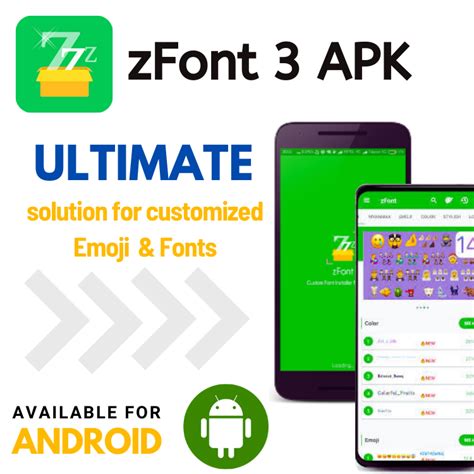
Download ZFont For IOS 15.4: Your Font Customization Guide
Unlock Your iPhone’s Potential: The Ultimate Guide to Downloading ZFont for iOS 15.4
What’s up, tech enthusiasts and customization kings and queens! Today, we’re diving deep into something super cool that’s going to revamp your iPhone experience : downloading ZFont for iOS 15.4. You know how sometimes you just stare at your iPhone and think, “Man, I wish I could just change these boring fonts?” Well, guess what? You absolutely can, and ZFont is your golden ticket! We’re going to walk through exactly how to get this awesome app onto your device, so you can start rocking those personalized fonts and making your iPhone truly your own . Get ready, because we’re about to unlock a whole new level of visual flair for your digital life. So grab your favorite beverage, get comfy, and let’s get this customization party started!
Why ZFont is Your New Best Friend for iOS 15.4 Font Customization
Alright guys, let’s talk about why ZFont is such a game-changer, especially when you’re running the latest and greatest, like iOS 15.4 . You see, Apple’s iOS is amazing, don’t get me wrong, but when it comes to font options? It’s a bit like being stuck with vanilla ice cream when there’s a whole world of flavors out there. ZFont swoops in like a superhero, offering you a massive library of fonts that you can apply across your entire device. Imagine seeing your texts in a stylish script, your notes in a bold, futuristic font, or even your social media captions popping with a unique typeface. ZFont makes this a reality, and it’s surprisingly easy to use. It’s not just about slapping on a new font; it’s about expressing your personality through the very text you interact with daily. Think about it – your phone is an extension of you, and ZFont gives you the power to fine-tune its look down to the last character. Plus, the app itself is designed to be user-friendly, meaning you don’t need to be a coding wizard to figure it out. We’re talking about a straightforward process that leads to some seriously impressive visual upgrades. So, if you’re tired of the same old system fonts and crave a touch of personal style, ZFont is definitely the tool you’ve been searching for. It’s the perfect way to make your iPhone stand out from the crowd .
Exploring the ZFont Font Library: A World of Typography Awaits
Once you’ve successfully got ZFont up and running on your iOS 15.4 device, the real fun begins: exploring the absolutely massive font library ! Seriously, guys, prepare to be amazed. ZFont doesn’t just offer a handful of generic fonts; it provides an extensive collection that spans across countless styles, eras, and aesthetics. Whether you’re into sleek and modern sans-serif fonts that give your interface a clean, minimalist vibe, or you’re more drawn to elegant serif fonts that evoke a classic, sophisticated feel, ZFont has got you covered. Feeling a bit quirky? Dive into the playful, handwritten, or even novelty fonts that can add a touch of personality and humor to your messages and notes. There are also bold, chunky fonts perfect for making headlines pop, and delicate, script-like fonts for when you want to add a touch of romance or class. The developers behind ZFont are constantly updating the library, adding new and trending typefaces, so you’ll always have fresh options to experiment with. It’s like having a personal typographic playground right in your pocket! You can browse by category, search for specific font names, or even see what’s popular among other users. The ability to preview fonts directly on your device before committing to an installation is a lifesaver, allowing you to see exactly how they’ll look in various contexts – from your home screen icons to your keyboard. This level of detail ensures you’re choosing fonts that not only look good but also enhance readability and user experience. So, take your time, explore, and don’t be afraid to mix and match to create a look that’s uniquely yours. The vastness and variety of the ZFont font library are truly what make it an indispensable tool for anyone looking to customize their iOS experience beyond the standard offerings.
Conclusion: Elevate Your iOS 15.4 Experience with Custom Fonts
So there you have it, folks! We’ve journeyed through the exciting world of ZFont download for iOS 15.4 , and hopefully, you’re feeling empowered and ready to give your iPhone a serious style upgrade. Customizing your device with unique fonts isn’t just about aesthetics; it’s about enhancing your daily digital interactions, making your iPhone feel more personal, and frankly, just having more fun with the technology you use every day. From understanding why ZFont is a must-have tool to navigating the installation process and exploring its vast font library, we’ve covered all the bases. Remember, while it might require a little extra effort to sideload, the result – a beautifully customized iPhone interface – is absolutely worth the time and effort . So go ahead, download ZFont, pick out some killer fonts, and start expressing yourself. Your iPhone is your canvas, and ZFont is your paintbrush . Happy customizing, guys!